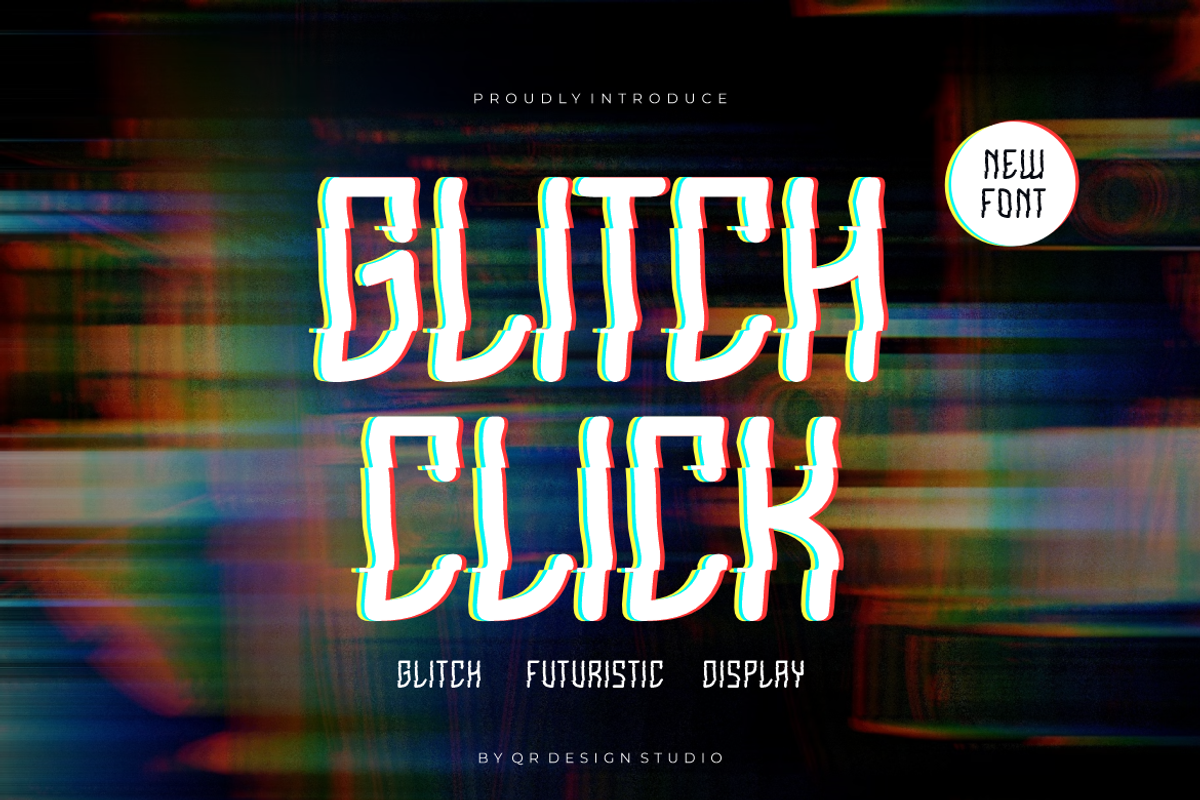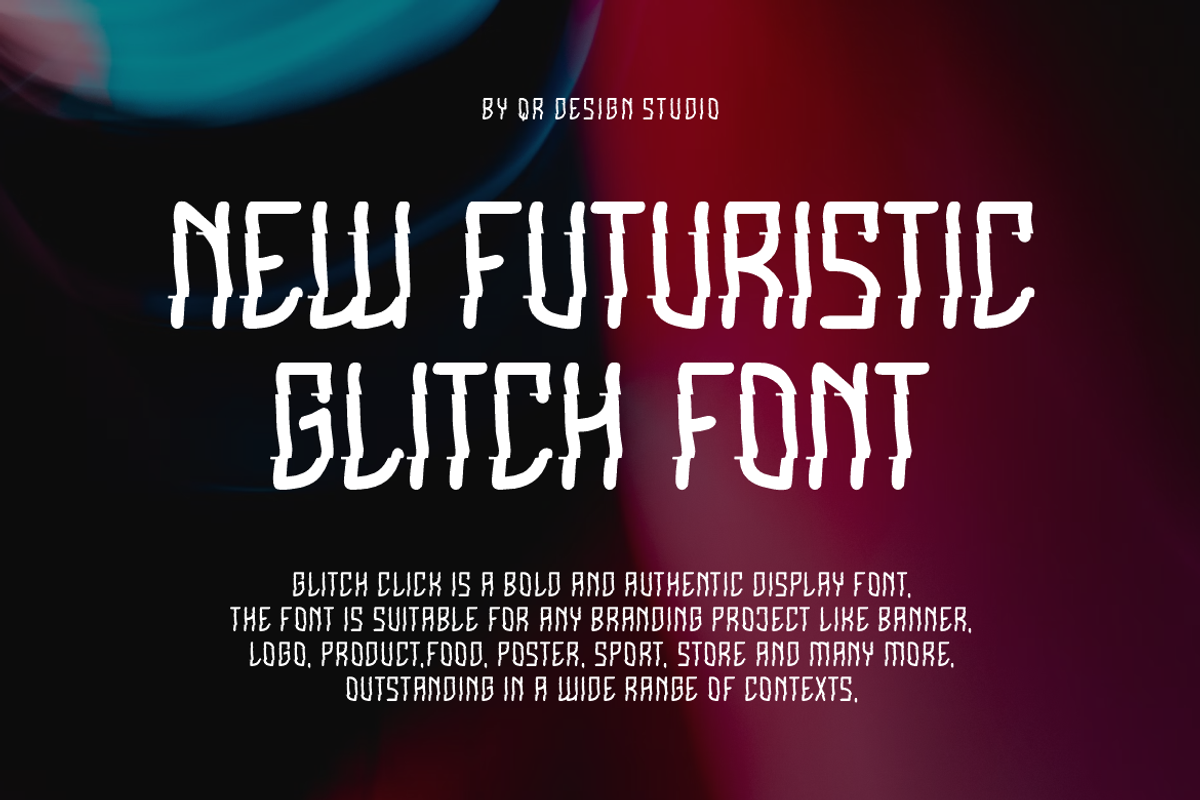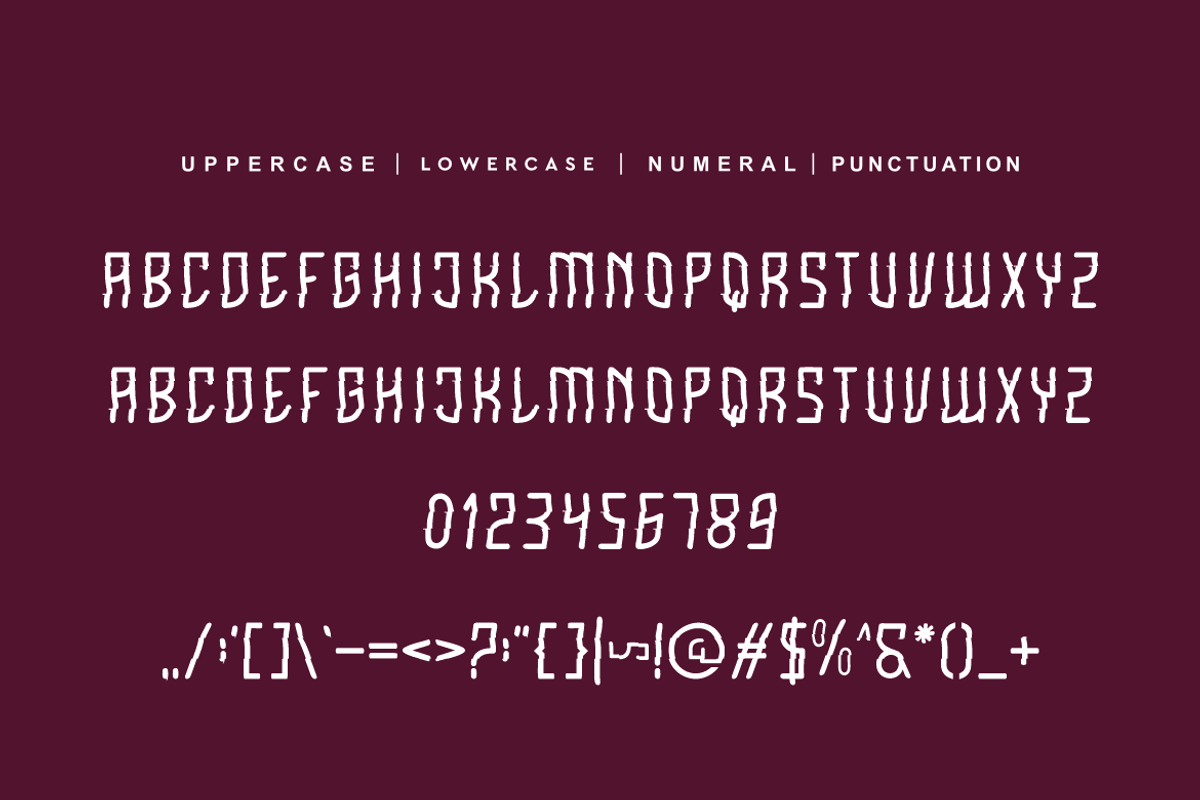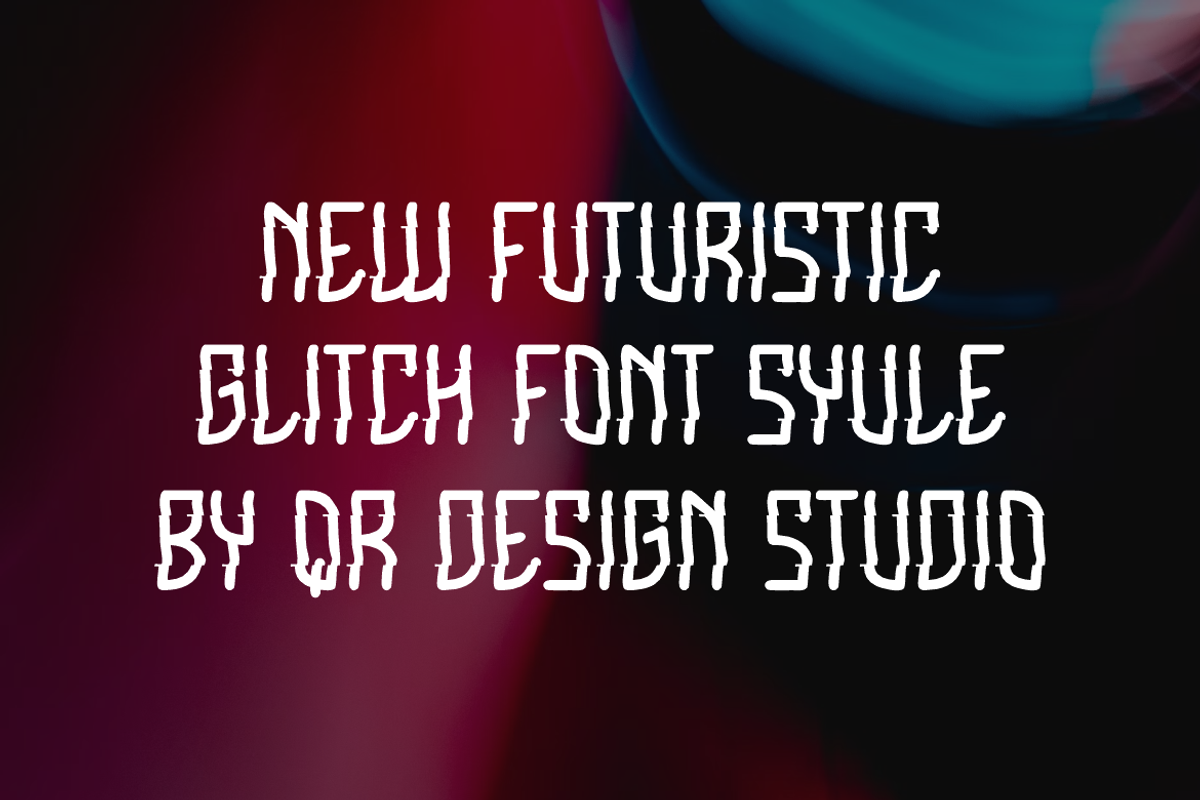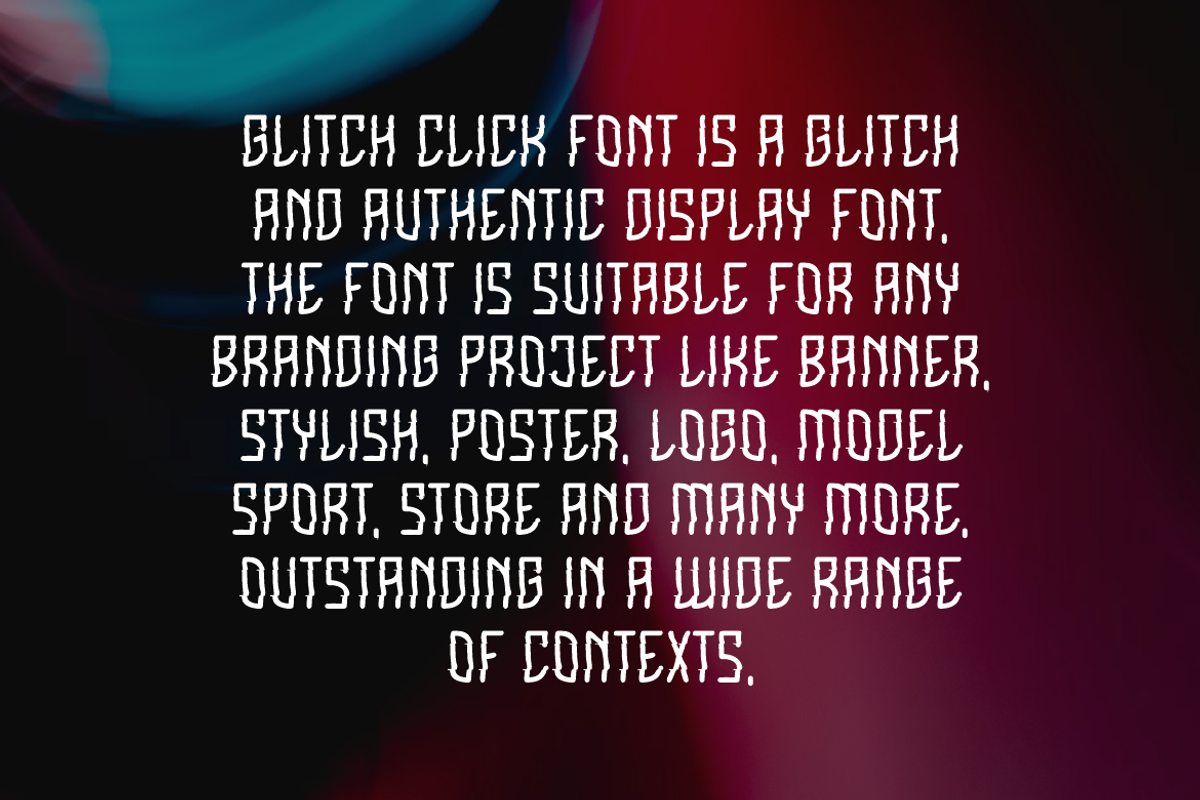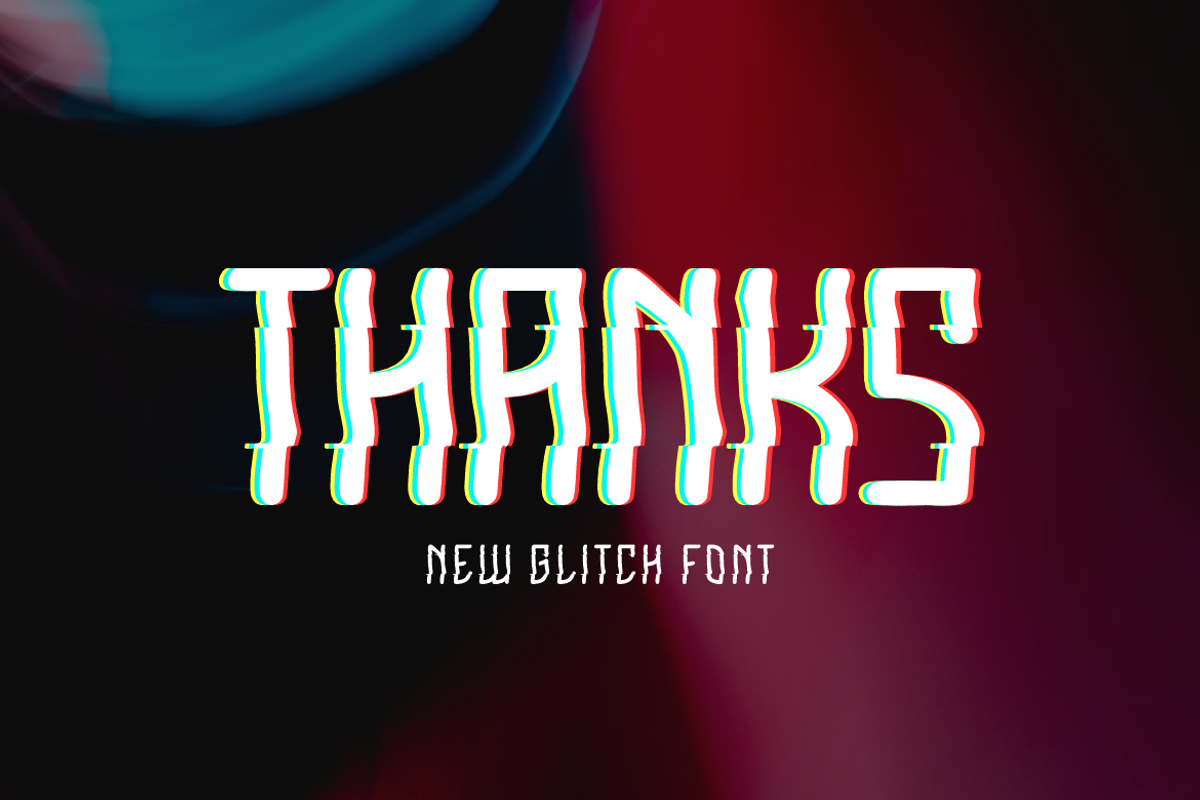
Glitch Click - Cyber & Glitch Font
Glitch Click - Cyber & Glitch Font is a decorative and authentic display font. The font is suitable for any branding project like poster, logo, sport, and many more. Outstanding in a wide range of contexts.